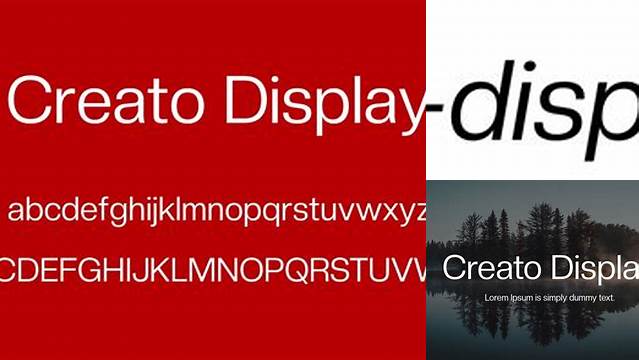
Hey everyone! Are you on the hunt for a fantastic and free display font? Well, look no further! This guide is all about the Creato Display Font, and how you can snag it for free. We'll dive into what makes this font so awesome, where to download it safely, and how to use it to make your designs pop. So, grab a coffee, get comfy, and let's get started! Creato Display Font Free Download is a fantastic choice for anyone looking to add a touch of modern elegance to their projects. This font is known for its clean lines, stylish curves, and overall readability, making it a versatile option for various design needs. Whether you're creating eye-catching headlines, designing website layouts, or crafting beautiful social media graphics, the Creato Display Font can elevate your work. Its versatility extends to both personal and commercial projects, making it a popular choice among designers, bloggers, and businesses. The ability to freely download and use this font offers an accessible way to enhance your creative endeavors without incurring additional costs. We will discuss about the availability of the font, the steps to download it, and tips on how to effectively implement it in your designs. Let's explore why the Creato Display Font Free Download option is highly sought after in the design community.
H2: Discovering the Charm of Creato Display Font
Creato Display Font Free Download, guys, is not just another font; it's a statement. It's a typeface that speaks volumes with its stylish and contemporary design. What sets Creato apart? It’s the subtle blend of modern aesthetics with a touch of classic appeal. This font is designed to grab attention while remaining easy to read, a crucial balance for any display font. The font's clean and sleek design makes it perfect for headlines, titles, and any project where you want to make a bold visual statement. The elegant curves and well-defined strokes give it a polished look that enhances the overall appeal of your designs. Creato’s versatility also allows it to be used in a variety of projects, from website banners to print materials, ensuring that your message is delivered with style. The availability of the Creato Display Font Free Download is a significant benefit, especially for those who are budget-conscious or just starting out in design. Having access to a high-quality font without any cost can be a huge advantage, allowing you to experiment and create professional-looking designs without financial constraints. With this font, you can achieve high-quality design outcomes while staying within a budget, providing freedom to express your creativity without limitation. Its widespread use in both personal and commercial projects reflects its adaptability and desirability among designers and creatives. This makes Creato a go-to choice for those looking to make a positive impact. Its ability to blend aesthetics and readability is what makes it one of the best display fonts.
H3: Key Features That Make Creato Font Stand Out
Let's break down what makes Creato Display Font Free Download so special. First up, we have its clean, modern aesthetic. The designers have paid meticulous attention to detail, resulting in a font that’s both stylish and user-friendly. The letterforms are clear and crisp, which makes the font readable at various sizes. This is super important for display fonts, as they need to look good whether they're used in a giant headline or a smaller sub-title. The font also boasts excellent kerning and spacing, ensuring that the letters flow seamlessly together. This careful attention to spacing contributes to a polished and professional appearance. Additionally, Creato often comes with multiple weights and styles, offering flexibility in your designs. You might find a bold version for impactful headlines and a regular version for body text. This versatility means you can use the same font throughout your project and maintain a cohesive look. The Creato Display Font Free Download provides an accessible and cost-effective option for designers of all levels. The font's accessibility is a major advantage, allowing designers to test and learn without incurring financial strain. Its easy availability has turned it into a favorite for a range of creative projects. The design itself is a testament to both artistry and functional practicality, allowing designers to create professional layouts. The font's design is a key reason for the font's growing popularity, as it allows designers of various levels to create engaging and impactful visuals. The overall aesthetic is designed to attract and engage the audience. The design's unique qualities make it an ideal choice for creative professionals and those who appreciate fine typography.